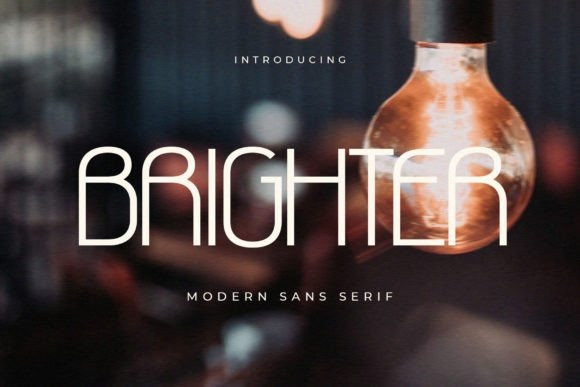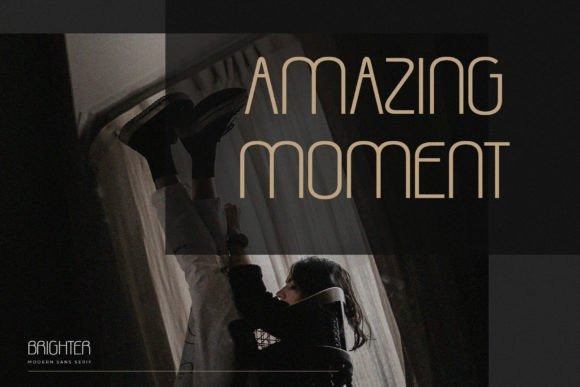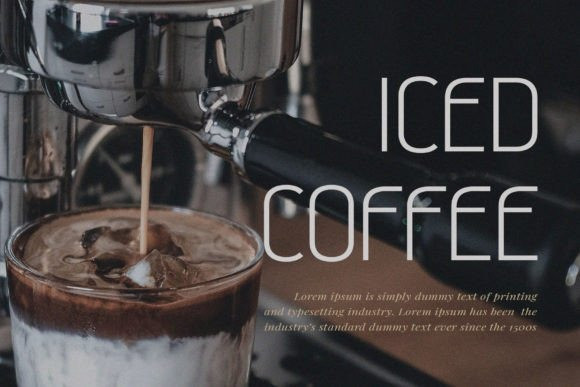
Brighter Font
Brighter is a clean and elegant sans serif font. Fall in love with its incredibly versatile style and use it to create gorgeous wedding invitations, beautiful stationary art, eye-catching social media posts, and much more!